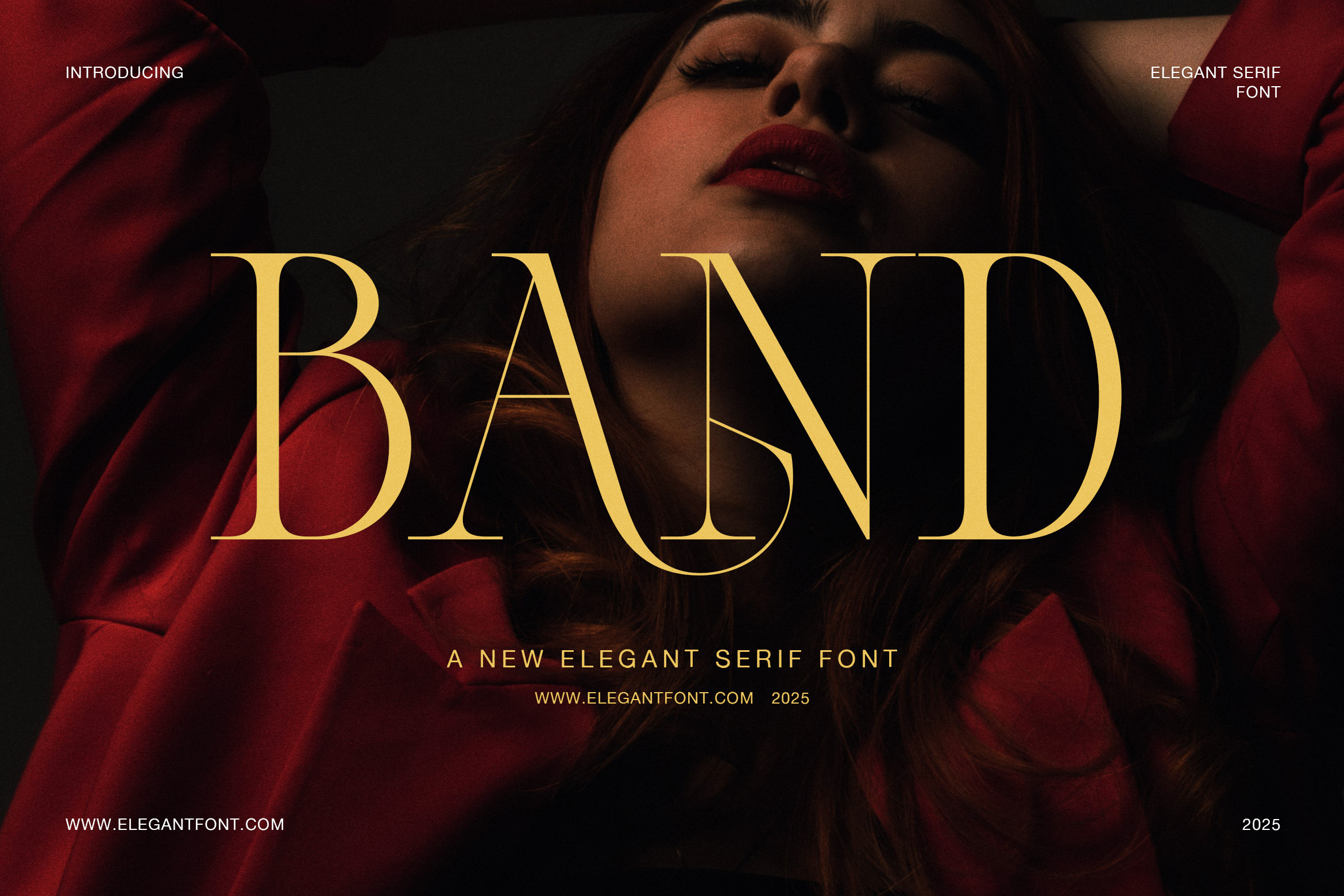
Band Elegant Luxury Serif Font
Band is an elegant luxury serif font crafted to deliver refinement, drama, and modern sophistication. Its letterforms are tall, slender, and highly contrasted, which immediately creates a premium visual impact. Thick vertical stems stand confidently beside delicate hairlines, while sharp, refined serifs add clarity and precision. As a result, the font feels both timeless and contemporary at the same time.
One of the most distinctive features of Band is its expressive ligatures and graceful connections. Several characters flow into each other through subtle curves, which produces a smooth and luxurious rhythm across headlines. Moreover, these details add personality without sacrificing readability. Because of this balance, Band performs beautifully in large display sizes where elegance matters most.
In the example layouts, the font shines across a wide range of premium applications. For instance, magazine covers appear polished and bold, while hotel branding looks upscale and welcoming. Likewise, fashion campaigns gain a sense of confidence and exclusivity. On dark backgrounds, the thin strokes glow with sophistication; however, on warm tones, the shapes feel soft and inviting. Therefore, Band adapts easily to different moods and design styles.
Band is especially suitable for projects that require a high-end aesthetic, including:
Luxury branding and logo design
Fashion editorials and magazine titles
Beauty and jewelry packaging
Hotel, lounge, and hospitality branding
Interior design and real estate marketing
Elegant websites and social media graphics
In addition, the font pairs seamlessly with clean sans-serif body text, which helps maintain readability while preserving a premium tone. Designers will also appreciate the well-proportioned spacing, decorative ligatures, full punctuation, and numeric set. Consequently, Band offers both artistic flair and practical versatility.
Overall, Band is more than a typeface — it is a visual statement of style and confidence. It communicates elegance instantly and elevates any composition with minimal effort. If you are looking for a modern serif font that feels luxurious, expressive, and unmistakably refined, Band provides the perfect foundation for standout design work.